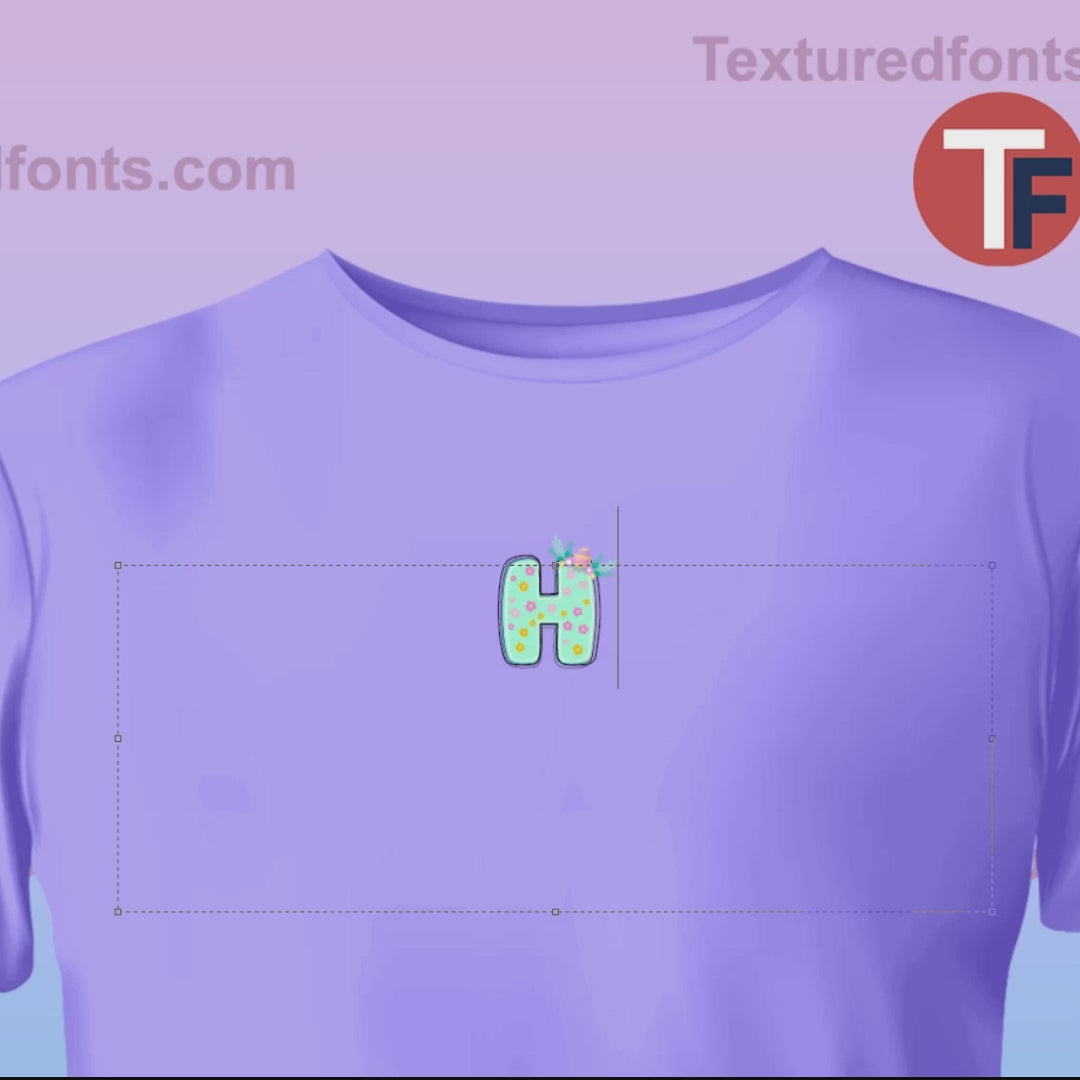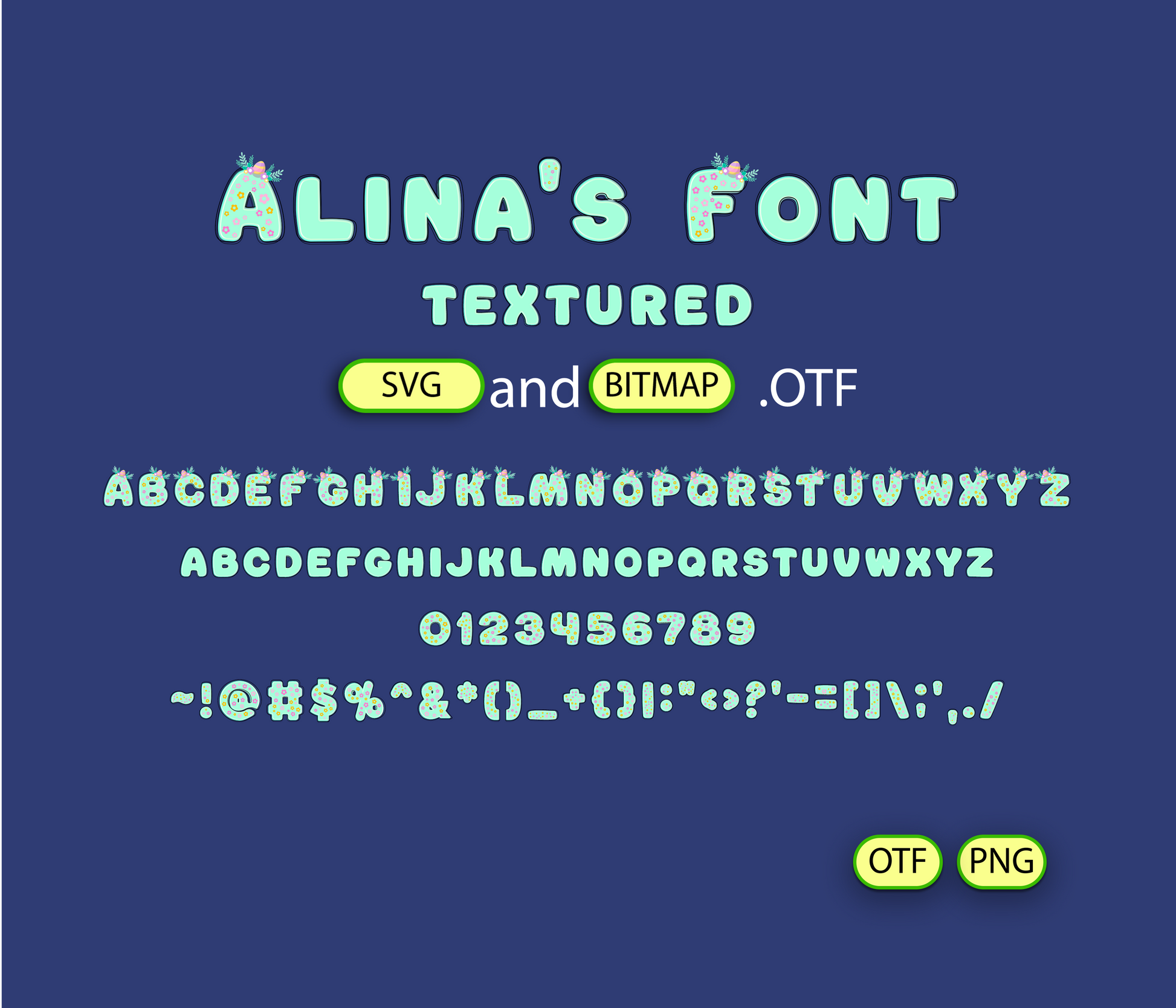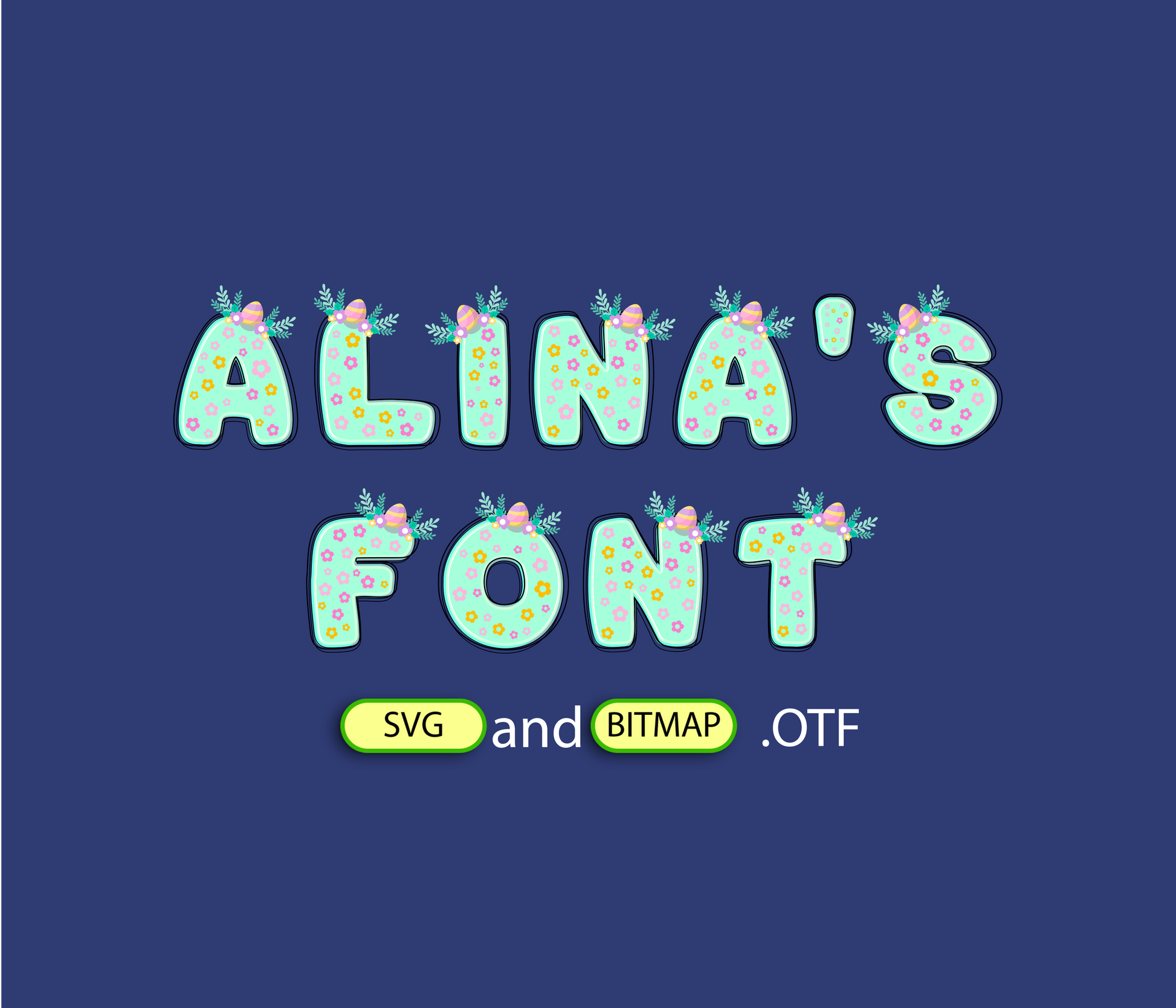
Spring Holiday Typeface Vibrant Pattern Font
Spring Holiday Typeface Vibrant Patterned Font
Celebrate the vibrant essence of spring and the joyful spirit of Easter with our specially crafted Easter font. Designed to encapsulate the renewal and festivity that Easter symbolizes, this font is perfect for bringing to life the season's most cherished moments. From Easter egg hunts to family gatherings, our Easter font is your go-to for creating invitations, festive greetings, educational materials, and engaging social media content that captures the heartwarming and colorful atmosphere of Easter.
What Can You Do With Pattern Font font?
The Easter font features a comprehensive character set designed for user-friendly application, enabling both novices and professionals to bring their Easter-inspired visions to life effortlessly. Whether you're aiming to convey the excitement of spring's arrival, the joy of Easter celebrations, or simply the beauty of the season, our Easter font, complete with its Free no-texture variant, is equipped to enrich your creations with the lively, hopeful essence of Easter.